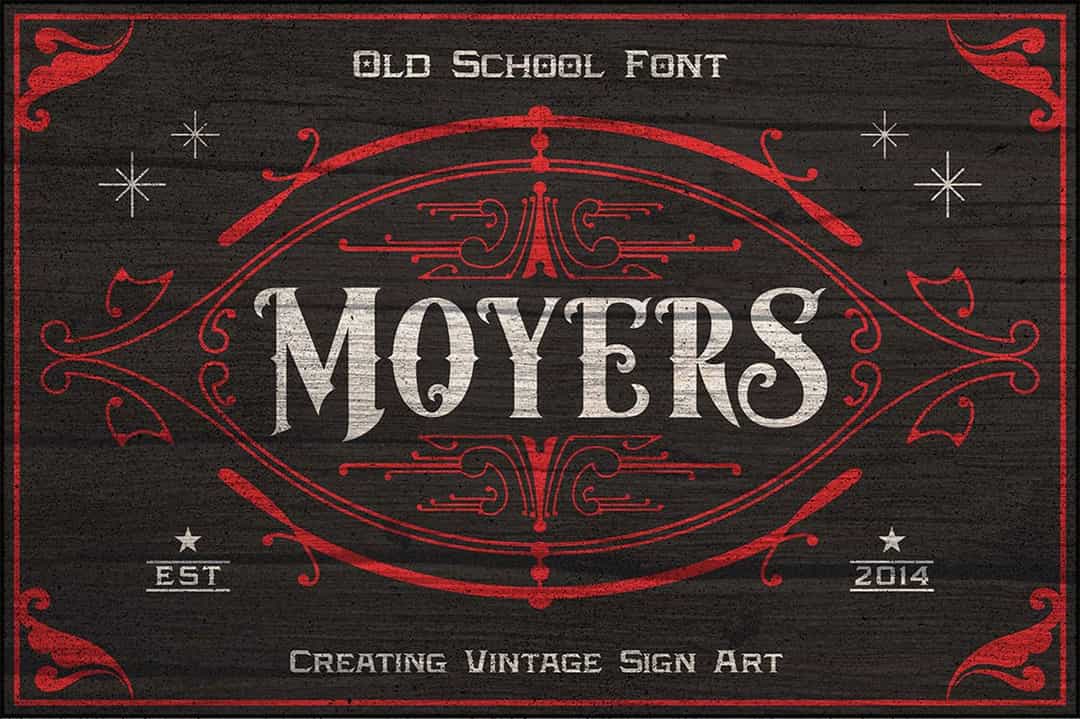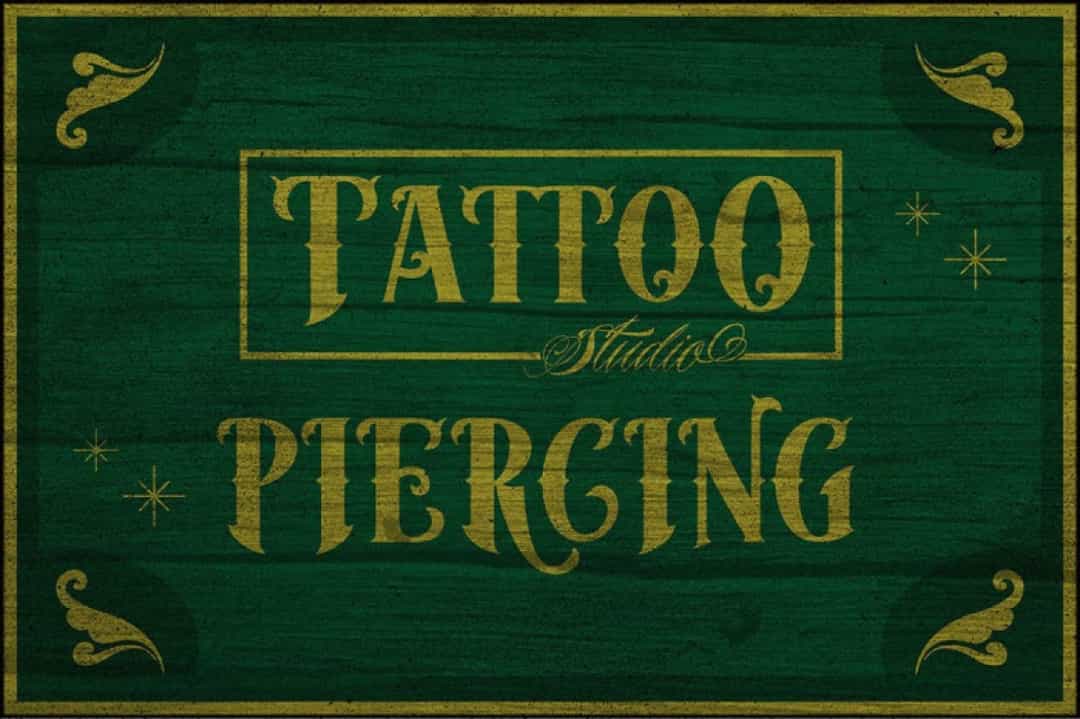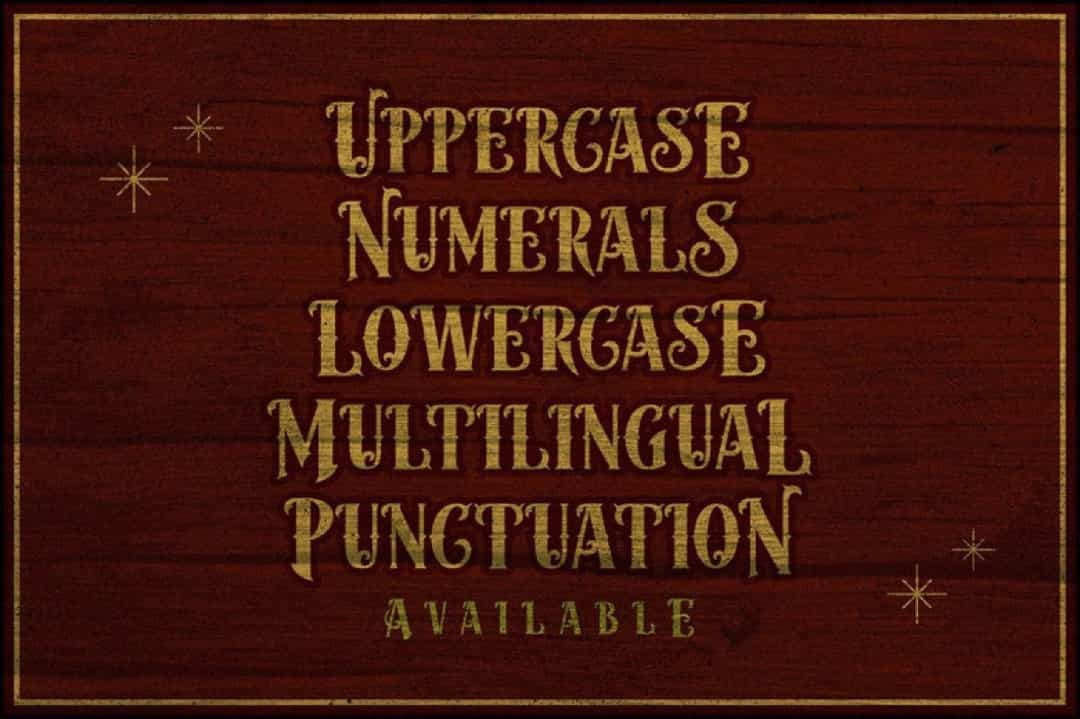
Moyers Font
Moyers is an old-fashioned serif blackletter font with classic elegance. Perfect for designing old-fashioned designs such as Display Logos, T-shirt posters and labels; featuring Uppercase, Lowercase letters along with Basic Punctuation symbols in upper and lowercase; this font comes both as OTF and TTF formats for your convenience.